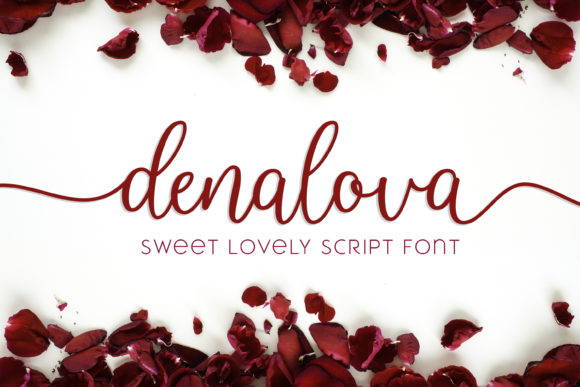
Unleash Your Creativity with Denalova: A Script Font that Mesmerizes
Embark on an enchanting journey of crafting with Denalova, a font that's as sweet as it is stylish. Each character dances across your screen, carrying a touch of warmth and charm. Let Denalova's unique script style add a personal touch to your projects, captivating your audience with its allure.
Elevate Your Designs to New Heights
Whether you're crafting invitations, greeting cards, or social media posts, Denalova empowers you to make a statement. Its charming curves and elegant lines bring a touch of sophistication to your creations, making them stand out from the crowd. From handwritten notes to eye-catching graphics, Denalova adds a dash of magic to every project.
Make Your Words Come Alive
Denalova is more than just a font; it's an expression of your individuality. Let your words dance across the page, imbued with the spirit of Denalova. Its expressive strokes convey emotions, adding depth and personality to your creations. Whether you're crafting a heartfelt letter or designing an inspiring quote, Denalova amplifies the impact of your words.
Escape the Ordinary, Embrace the Extraordinary
With Denalova by your side, you'll never settle for ordinary. Its enchanting style transforms your designs into captivating works of art. Indulge in the creative possibilities, knowing that Denalova will elevate your vision to new heights.